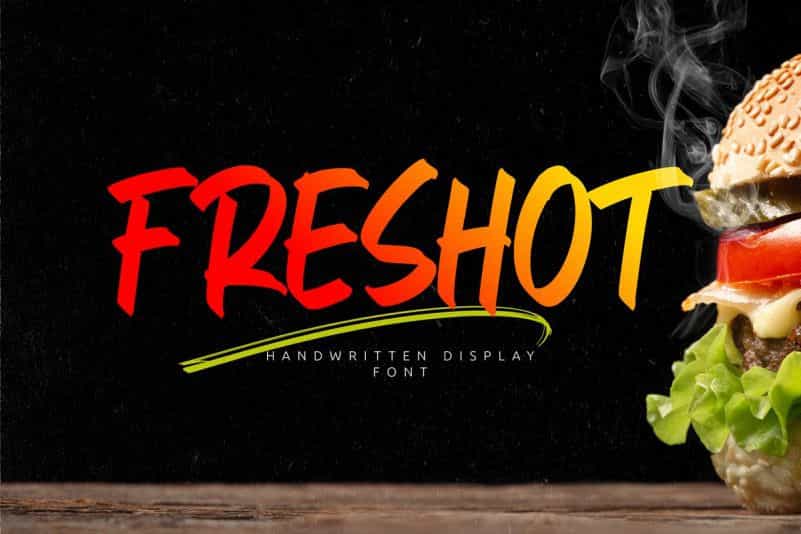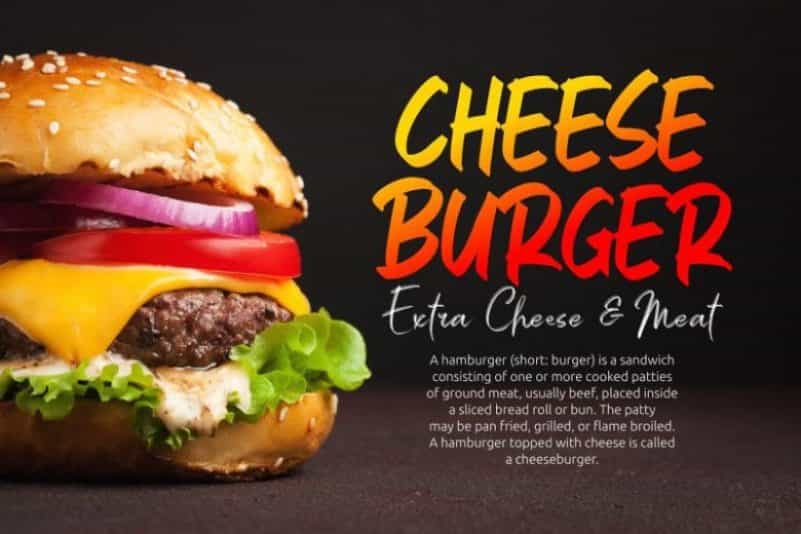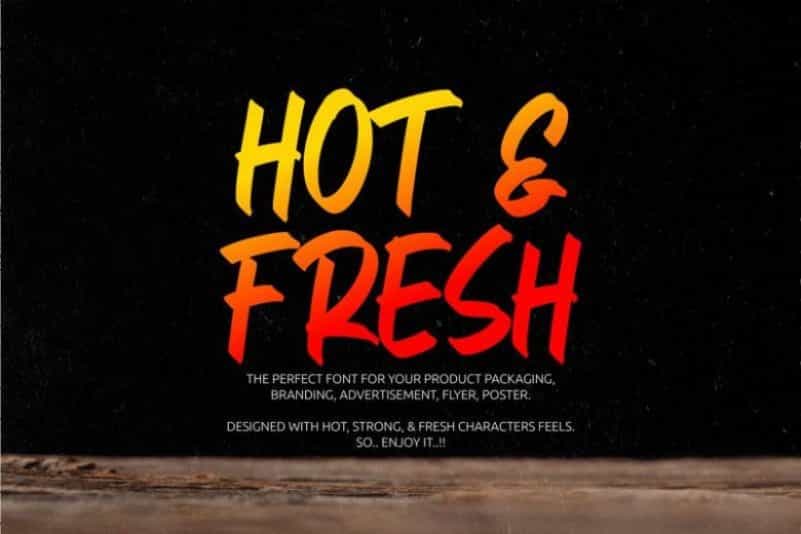
FresHot is a handwritten display font with such attributes as strong, fresh and hot. It looks unique and can be applied for any project you might have. Every sign is unique and when it meets with the other ones, it will create a dynamic and pleasant interaction. This font can be used at any given time and in any project.